Introduction: When Type Tells a Love Story (and Sells a Package)
If you want your packages to book faster, your typography must whisper love at first sight. The right wedding photography fonts make pricing menus feel premium, album spreads feel cinematic, and your brand feel trustworthy—before a bride even reads the fine print. In 2025, the winning look blends romantic serifs and human, handwritten scripts. Below, you’ll find 10 editor-picked wedding photography fonts that not only look beautiful, but also help you present value, reduce price resistance, and close the sale.
Quick proof point: People don’t just buy photos—they buy the feeling they’ll revisit for decades. Typography frames that feeling on every touchpoint: website hero, PDF packages, Instagram highlight covers, album boxes, and thank-you notes.
How to Choose Wedding Photography Fonts That Convert
1) Lead with emotion, follow with clarity
Pair a signature script for names/headlines with a clean serif for pricing, timelines, and deliverables. This keeps romance upfront and the numbers crystal clear.
2) Keep contrast intentional
Use weight, size, and letter-spacing to guide the eye: dreamy script for “The Valencia Package,” refined serif for “8 hours coverage, 2 shooters, 40-page album.”
The 10 Best Wedding Photography Fonts in 2025 (Romantic Serif + Handwritten)
Use these wedding photography fonts across proposals, PDF pricing menus, website pages, album covers, and keepsake boxes. Each pick includes a direct link so you can test it on your brand today.
1) Viktoria – Stylish Font Duo
A refined serif + script pairing made for modern romance. Think soft editorial headers with a graceful signature line beneath. Perfect for cover pages (“Amelia & Noah — Lake Como”) and hero sections that need a premium glow.
Use it for: Package titles, album title pages, website H1s.
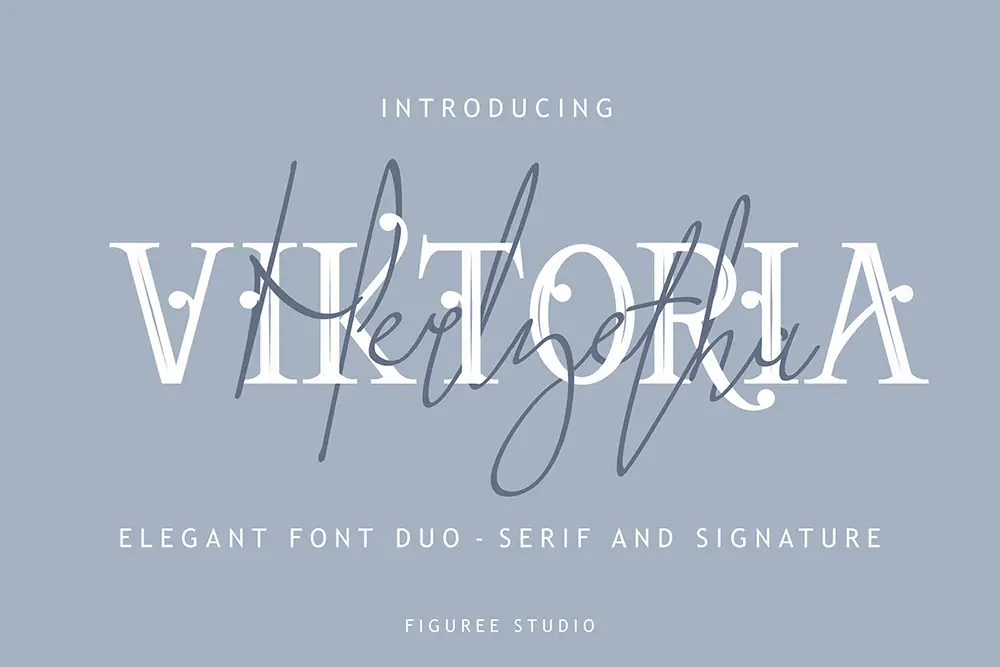
2) Radditya Signature – Elegant Handwritten Font
A graceful signature script with long, airy strokes and sophisticated swashes—ideal for names, venue callouts, or the “Thank You” card at delivery.
Pair with: A crisp serif (like Viktoria’s serif) for pricing clarity.
3) Roadpunks – Handbrush Typeface
Romance isn’t always soft. For adventurous couples (desert elopements, rooftop city vows), this textured brush adds human energy and editorial edge.
Use it for: Save-the-date mockups, elopement package covers, Instagram story headlines.
4) Hadejah – Elegant Signature Font
A silky, refined script with high legibility—great for premium collections and black-tie brand aesthetics.
Use it for: Collection names (“Opulence,” “Eternity”), album slipcases, foil-stamped details.
5) Khaleiyfa – Lovely Modern Script
Friendly, modern curves that feel warm and approachable—perfect for lifestyle weddings, outdoor ceremonies, and candid-focused brands.
Use it for: Section headers in your PDF (“Coverage Options,” “Add-Ons”).
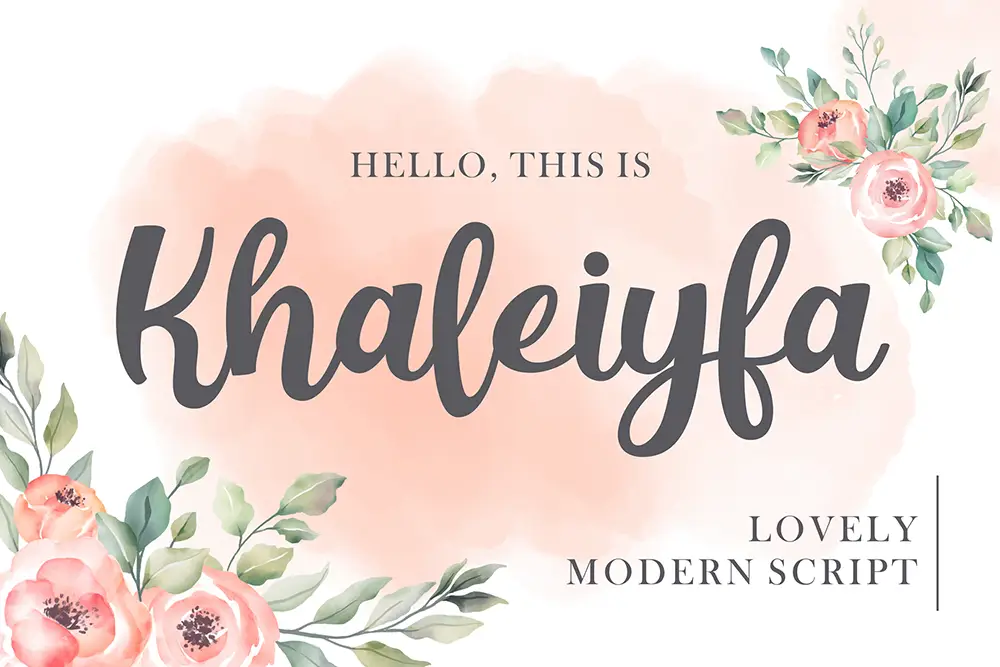
6) Break Fridays – Clean Bold Script (+ Bonus Roads Block)
A bold script that still reads clearly at smaller sizes. The included bonus display font helps you create striking price anchors and value callouts.
Use it for: “Limited 2025 Dates” badges, “Most Loved” package labels.